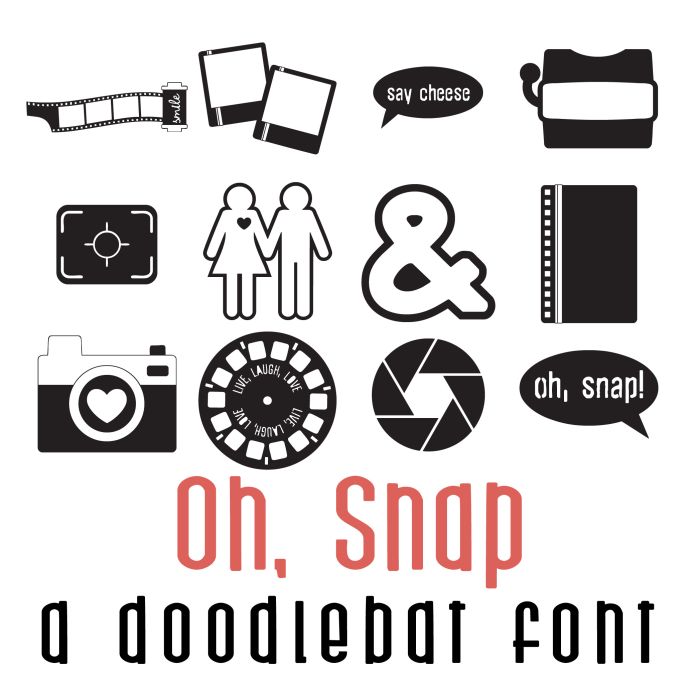
This doodlebat font features 26 camera, film, frame and journaling imagery. Perfect for classrooms, teachers, gifts, decor, scrap book pages, planner stickers and more!